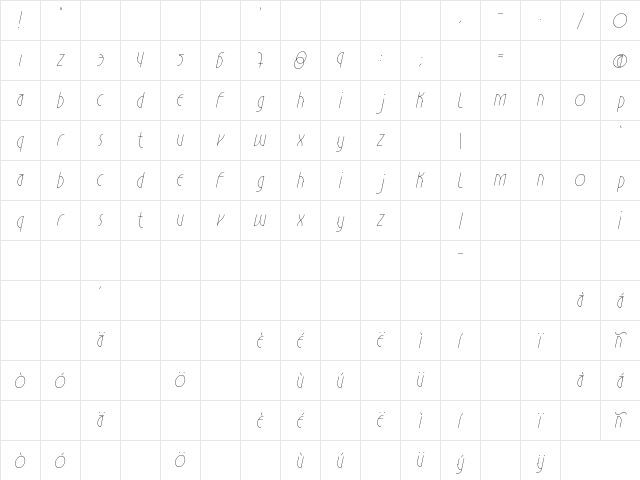
Estilistica Italic Font Preview
Estilistica Italic
Estilistica Italic Font Details
Design Context for Estilistica Typeface
Estilistica is a composed and adaptable typeface that performs quietly and consistently across a wide range of design contexts. Its italic angle brings a sense of urgency and motion to the letterforms.
Pro Tip: Use Estilistica for emphasis, pull quotes, and subheadings where its slanted energy can add rhythm to the layout.